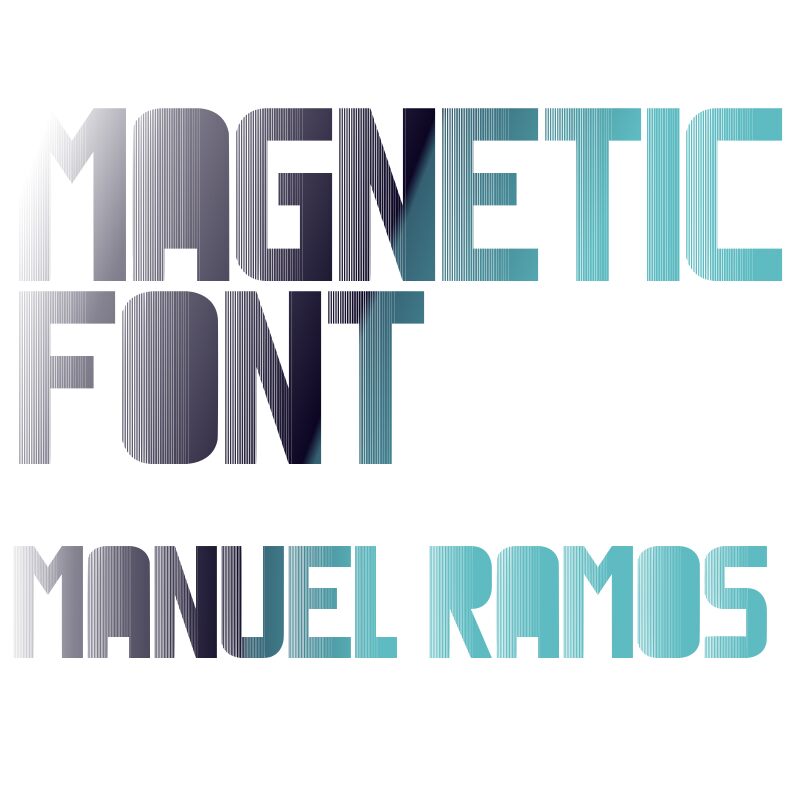
Magnetic by Manuel Ramos is a free eroded techno display font with towering, tightly packed capitals and a stark mechanical silhouette. Dense vertical scoring cuts through the broad strokes, turning solid forms into bands of fine lines and giving rounded letters the same machined surface as the angular ones.
Techno and industrial music are its clearest setting. The extreme height and striped texture fit event posters, album covers, fashion graphics, and gaming title screens, where lettering becomes part of the image rather than neutral text. For apparel branding, the repeated linear treatment can become a recognizable product identity across tags, packaging, and merchandise.